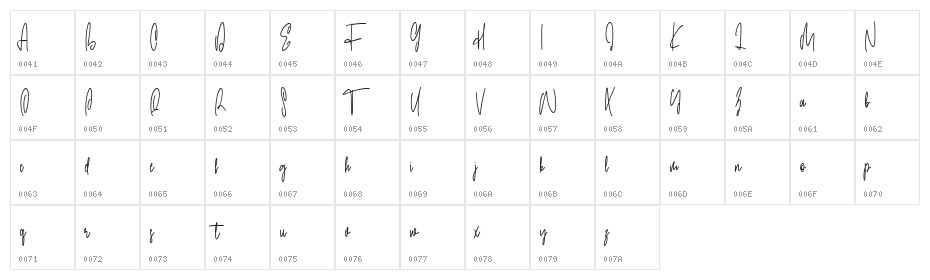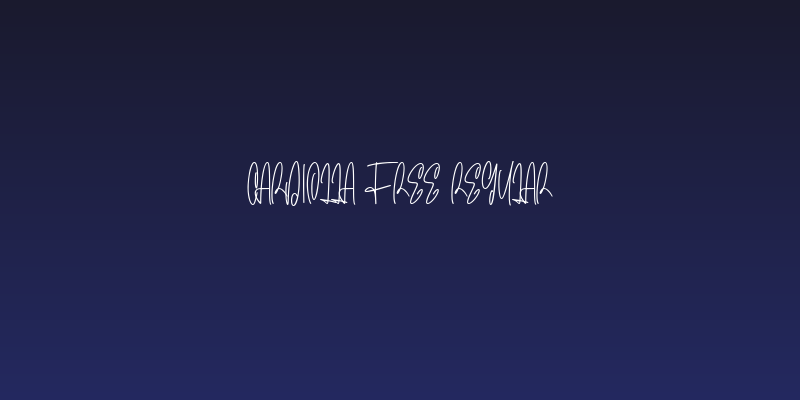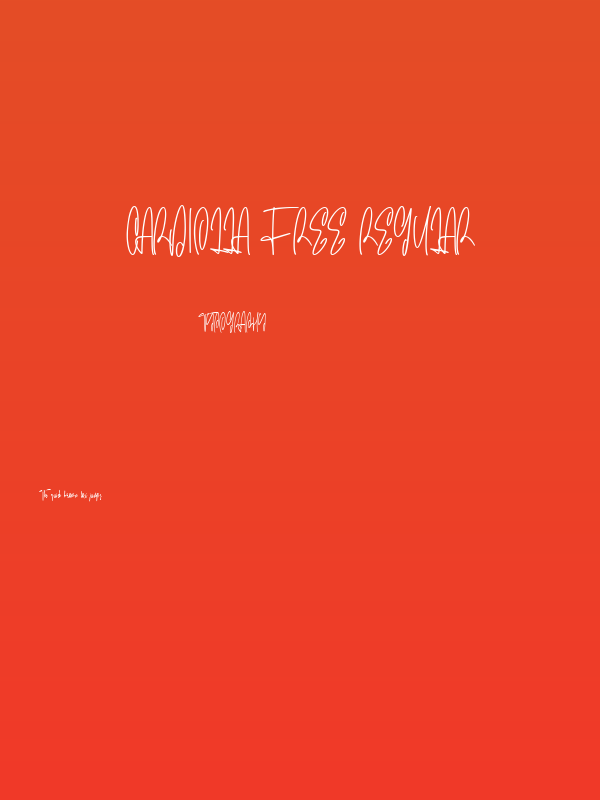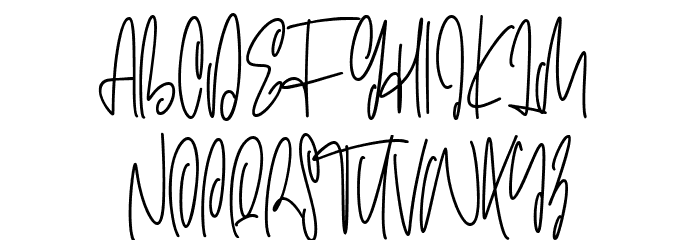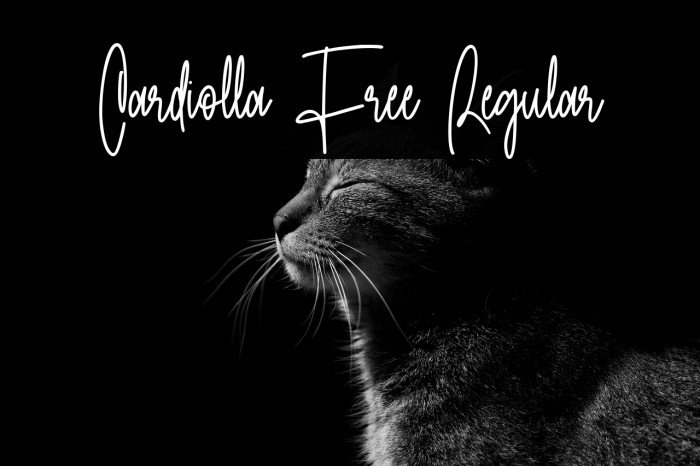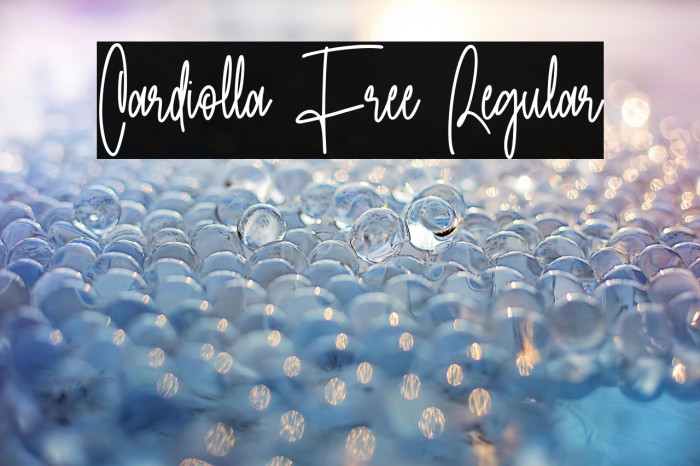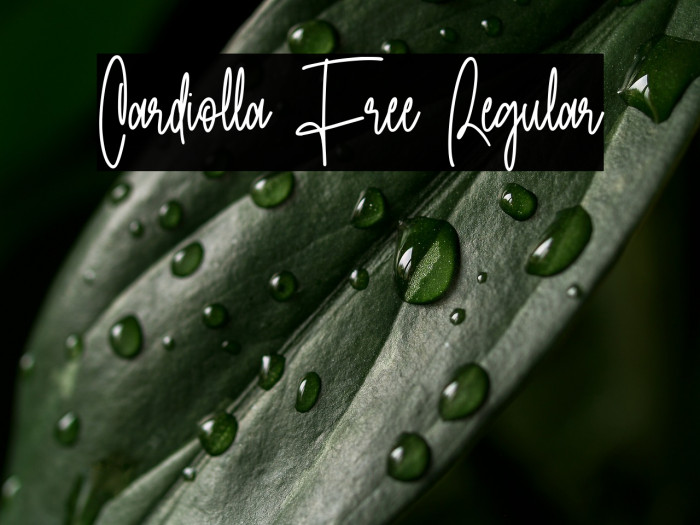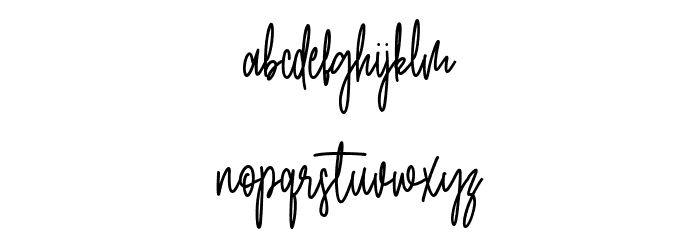
Cardiolla Free Regular Font
Cardiolla Free Regular Description
This font features a dynamic and expressive handwritten style, characterized by its fluid and elongated letterforms. The strokes are smooth and continuous, giving it a lively and personal touch. The uppercase letters are tall and narrow, while the lowercase letters maintain a consistent flow, enhancing readability. The font's playful nature is evident in its unique character shapes, which add a creative flair to any design. The overall appearance is both elegant and casual, making it suitable for a variety of applications where a personal and artistic touch is desired.
| Proposed Projects | Ideal for greeting cards, invitations, personal branding, and creative projects that require a personal touch. |